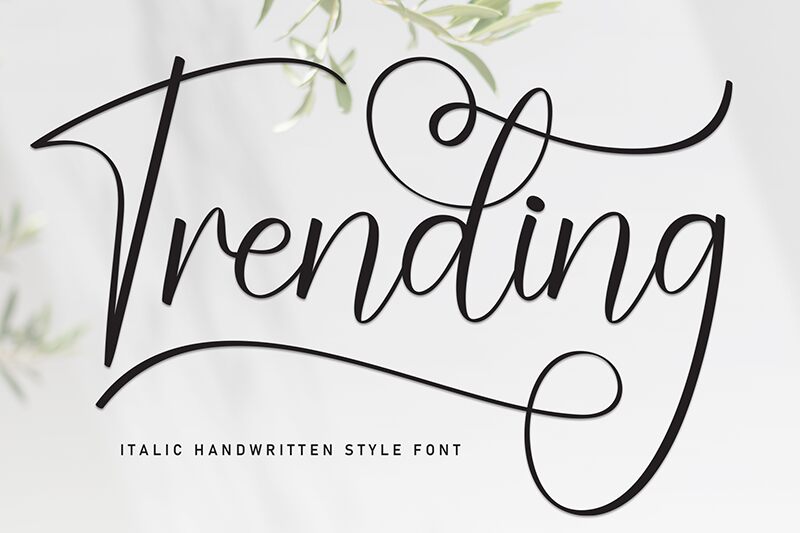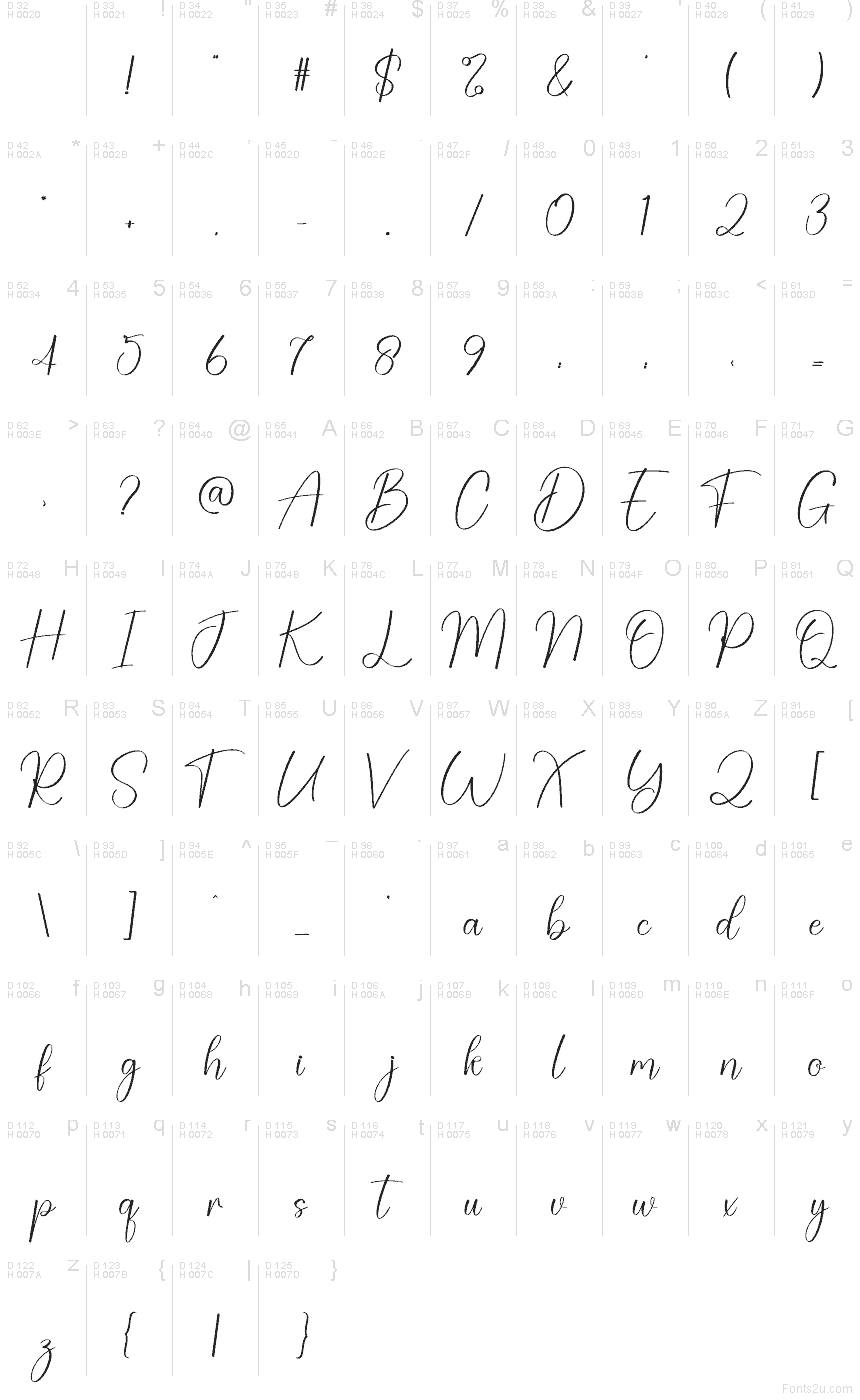
Trending
Trending font by Scratchones is a free handwritten script typeface with the easy elegance of quick ink on smooth paper. Long, sweeping entry strokes and airy spacing give it a light, fashion-forward feel, while the thin, slightly textured lines keep it from looking stiff or formal. It feels like a stylish signature—casual, but still polished enough for brands that want a modern, feminine voice.
Using Trending, this free font shines on wedding invitations, boutique logos, Instagram graphics, product packaging, quotes, blog headers, and beauty or lifestyle branding. Its flowing rhythm makes short phrases look instantly styled, especially at larger sizes where the graceful curves can breathe. Pair this handwritten script with a clean geometric sans for body text to keep layouts fresh, readable, and on-brand.